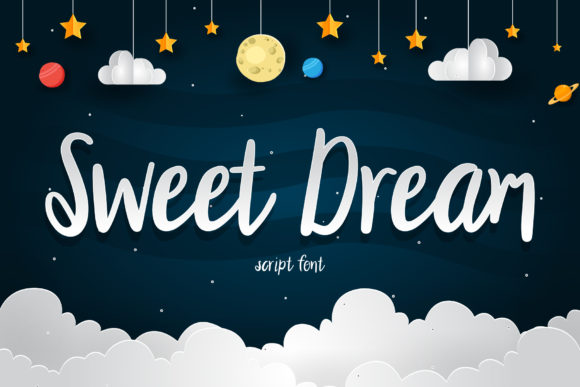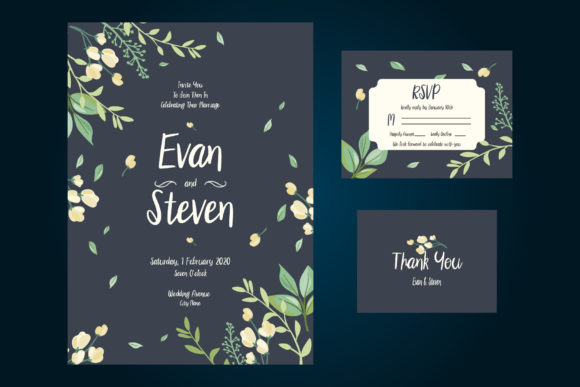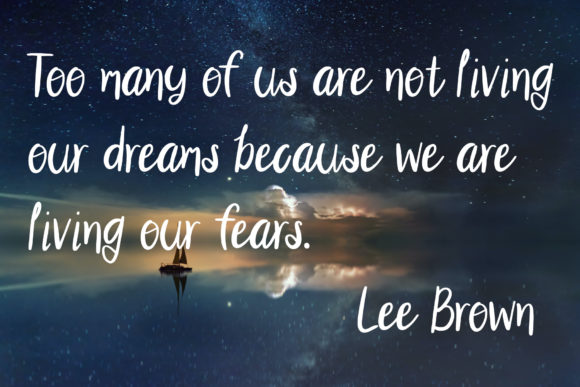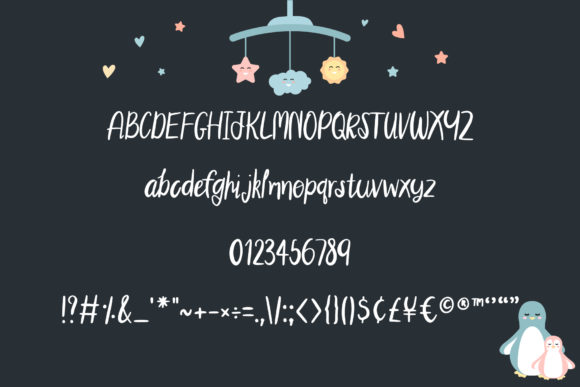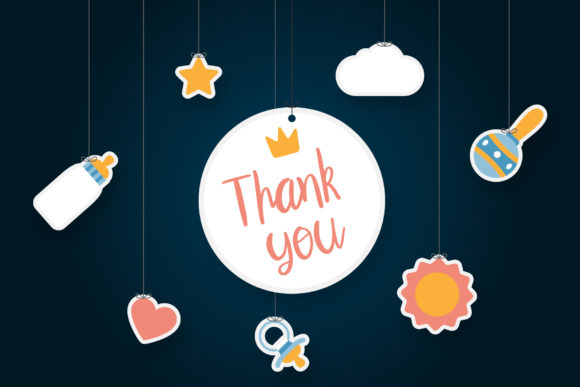
Sweet Dream Font
Sweet Dream is a magical handwritten font carefully created with a touch of elegance. This fantastic font is best suited for headlines of all sizes, as well as for blocks of text that have both maximum and minimum variations. Whether it’s for web, print, moving images or anything else – Sweet Dream will look spectacular.